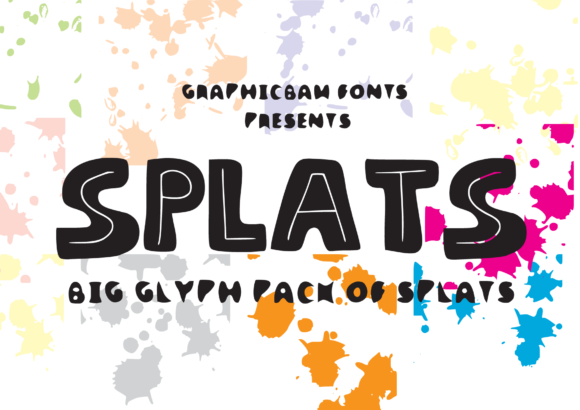
Journey into the realm of artistic expression, where Splats Font reigns supreme. This extraordinary dingbats font holds the power to transform your designs into captivating masterpieces, leaving an indelible mark on your audience's minds. Each character in this font is a work of art, meticulously crafted to ignite creativity and elevate your designs to new heights.
Experience the boundless possibilities that await with Splats Font. Its playful and unconventional glyphs will breathe life into your T-shirts, posters, social media graphics, and more. Unleash your imagination and let your designs dance with flair and individuality.
Behold the intricate details and charming imperfections of Splats Font. Its hand-drawn aesthetic adds a touch of authenticity and soul to your creations, setting them apart from the ordinary. Embrace the unique character of this font and watch as it transforms your designs into cherished keepsakes.
With Splats Font, you'll discover a treasure trove of creative potential. Its expansive character set offers endless opportunities to play with letters, numbers, and symbols, creating visually stunning compositions that speak volumes. Let your designs resonate with personality and charm as you weave together words and graphics with effortless grace.
Don't settle for ordinary fonts that blend into the background. Choose Splats Font and let your designs take center stage. Its bold and captivating presence will command attention, leaving your audience captivated from the very first glance. Make a statement with every design and leave a lasting impression that lingers in their minds long after they've experienced your creations.
Join the ranks of discerning designers who recognize the transformative power of Splats Font. Embrace its artistic flair and watch as your designs blossom into works of art. Let your imagination soar, let your creativity flow, and prepare to be amazed by the stunning results that await you with each new project.